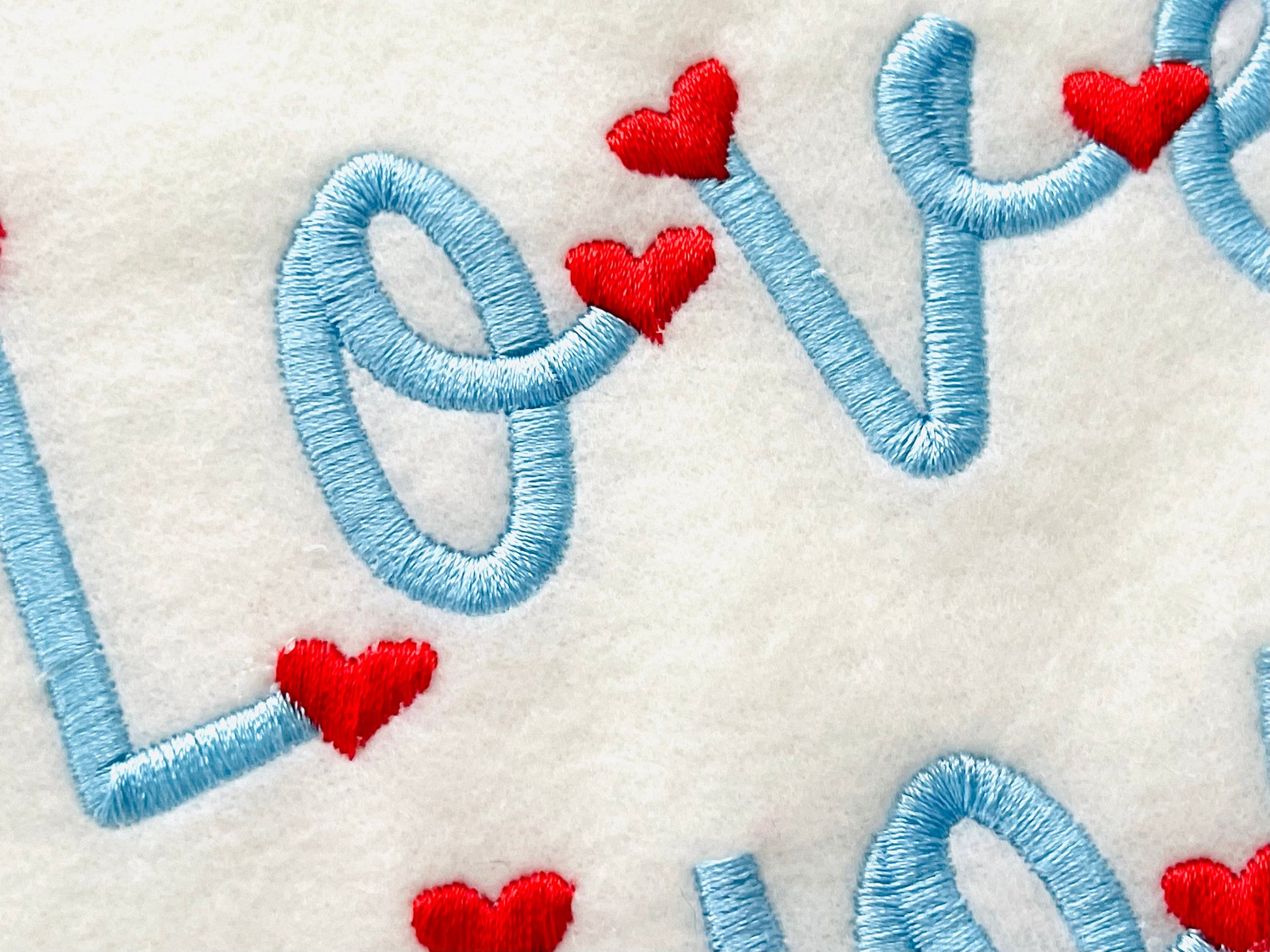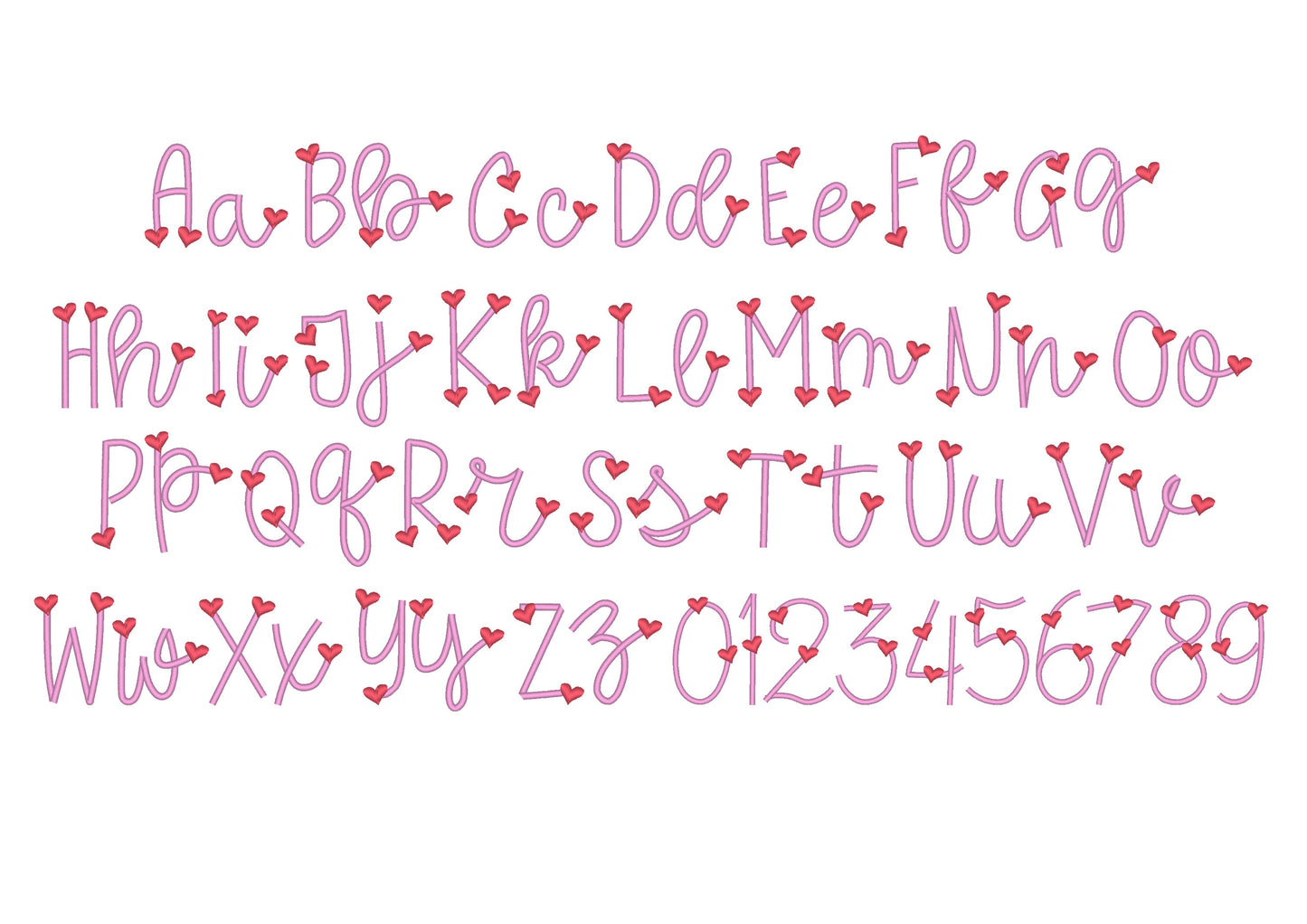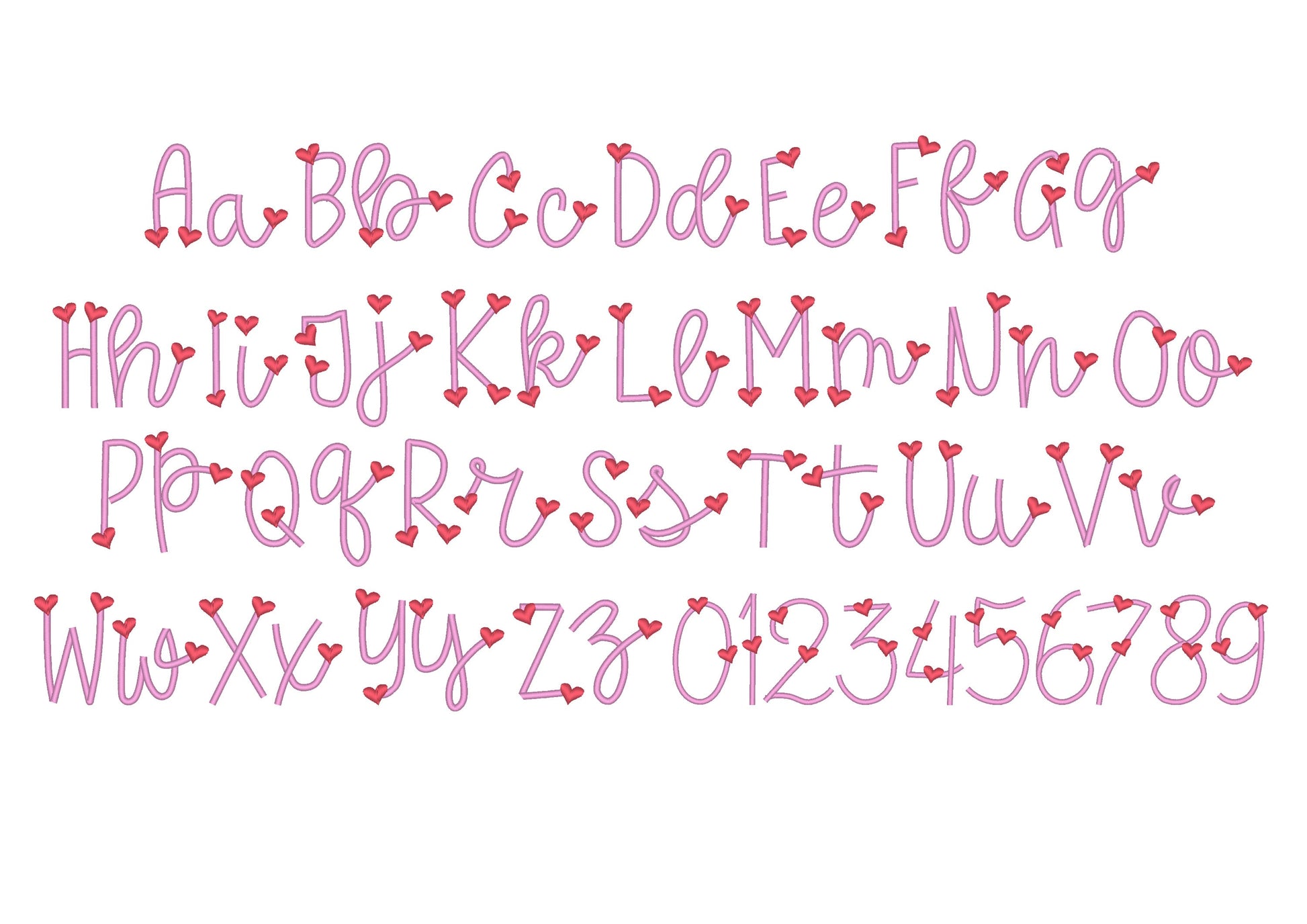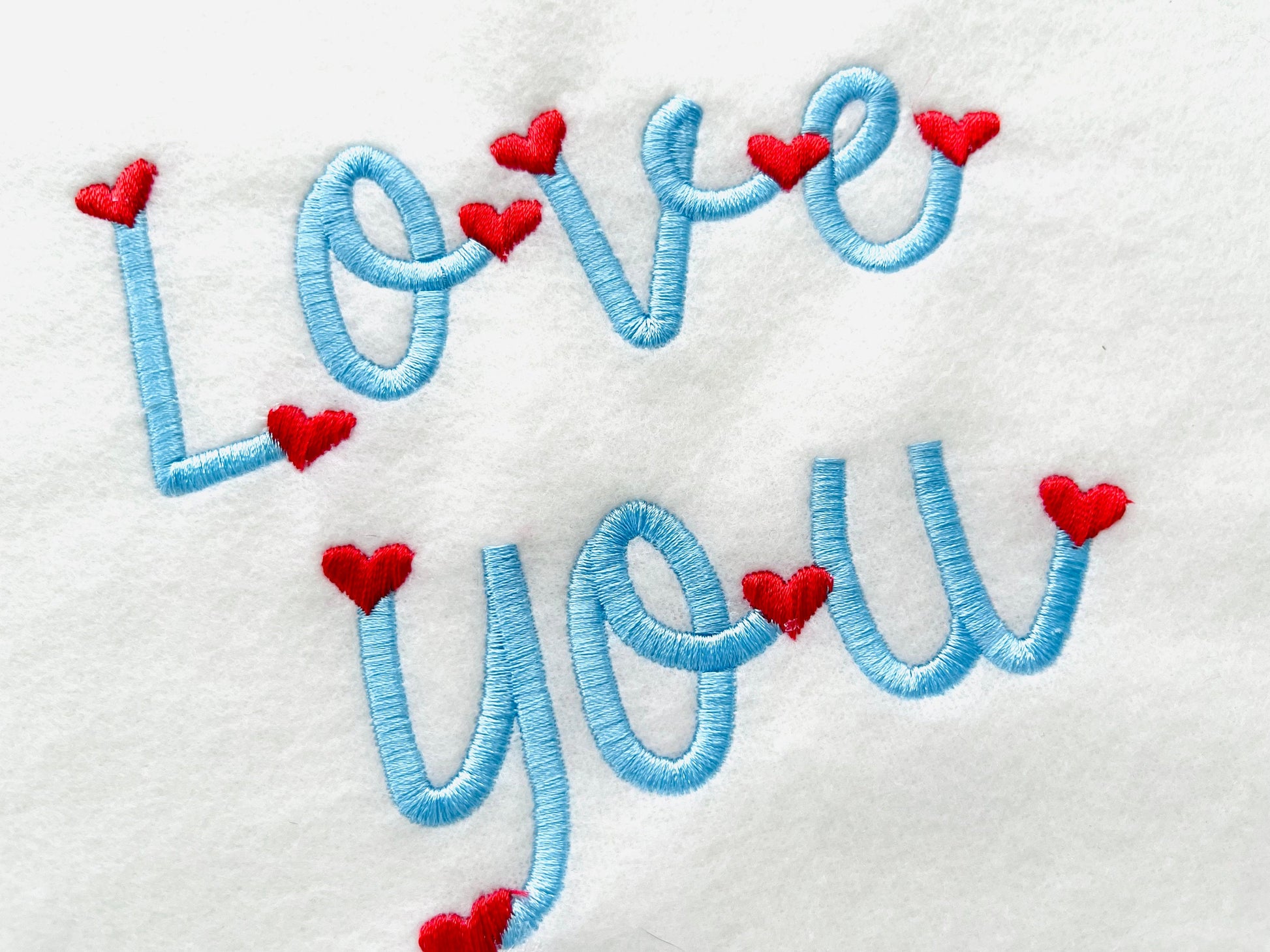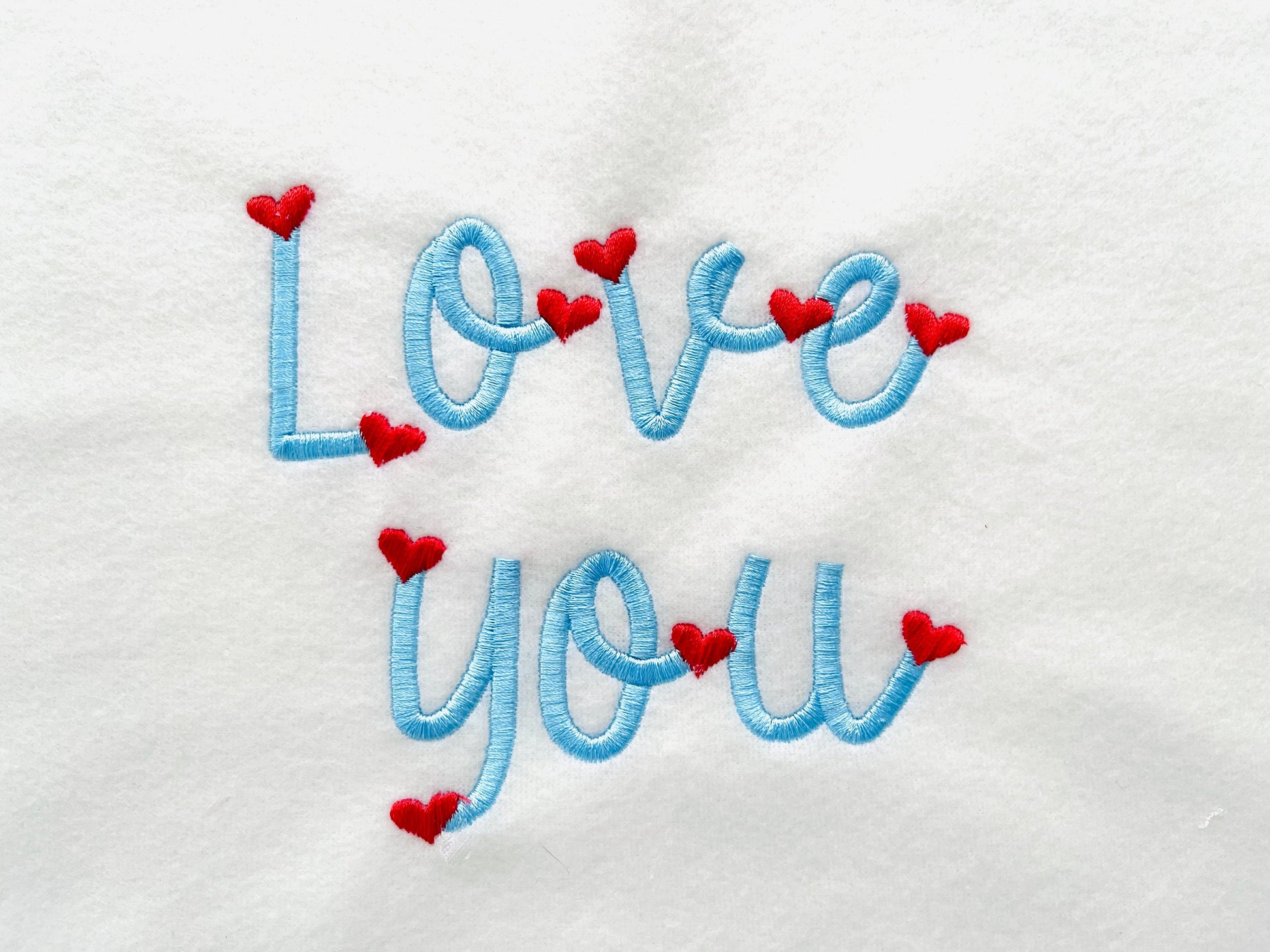
Tiny Heart Satin Font
A thin-line satin script with little hearts, for sweet kids' names and Valentine's words on shirts and gifts.
• Heart satin thin-line script font